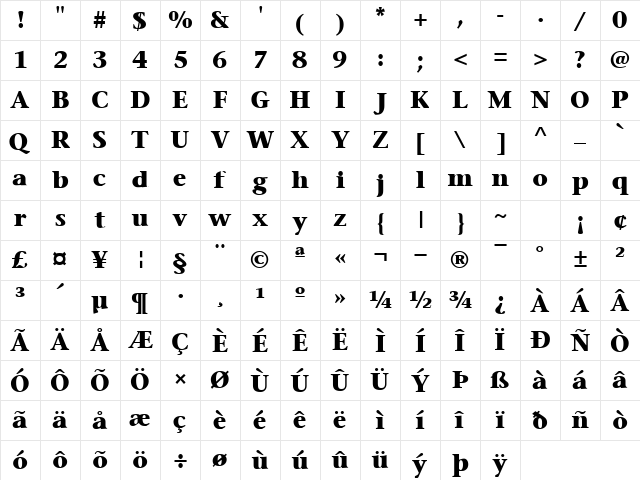
MesouranSerifBlackSSK Normal
MesouranSerifBlackSSK Family
Design Context for MesouranSerifBlackSSK
MesouranSerifBlackSSK carries the refined structure of traditional serif typography, with bracketed terminals and considered proportions that communicate credibility and craft.